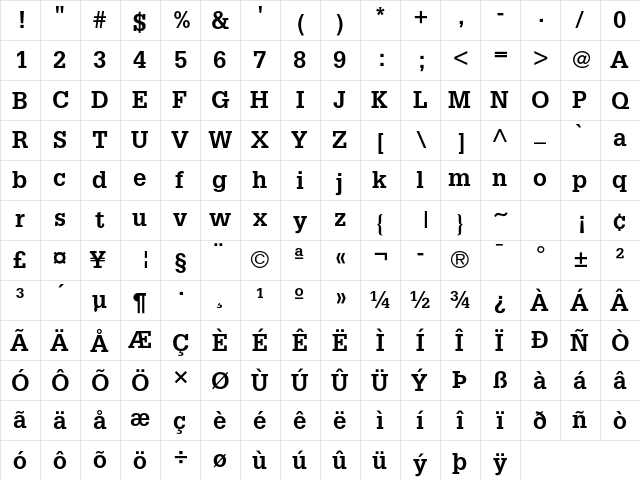
Glypha LT Std 65 Bold
| Designer | Adrian Frutiger |
Design Context for Glypha LT Std Typeface
Glypha LT Std is a composed and adaptable typeface that performs quietly and consistently across a wide range of design contexts. The heavy weight commands attention and anchors typographic hierarchies.